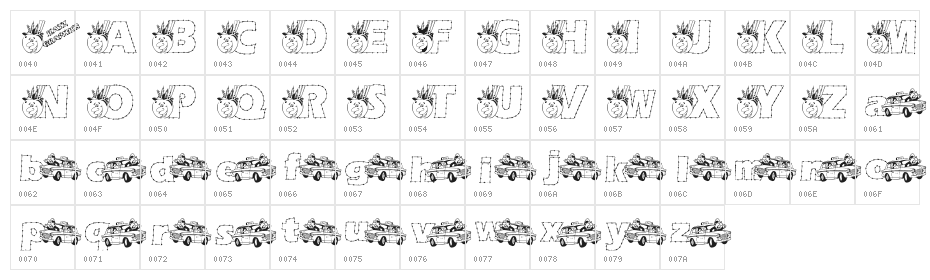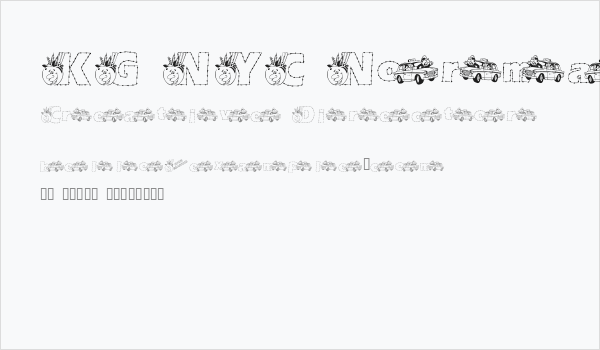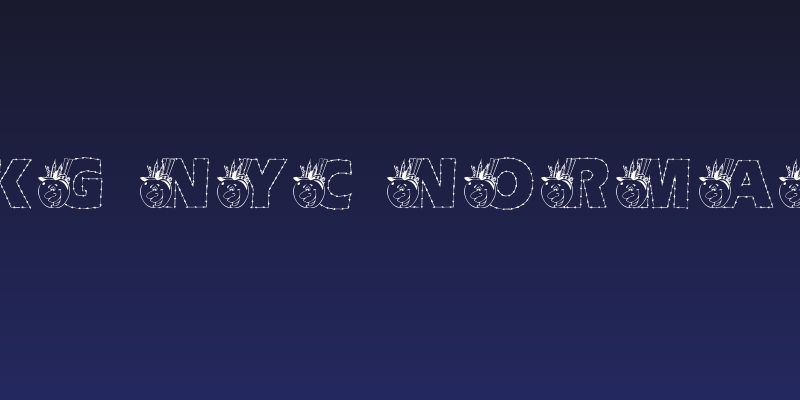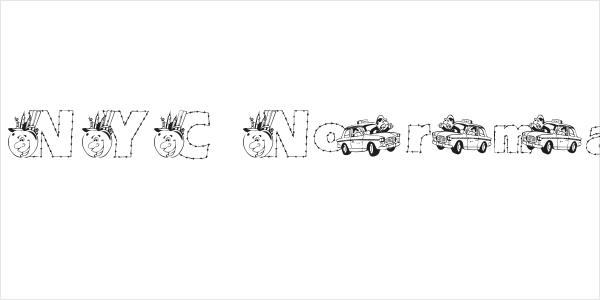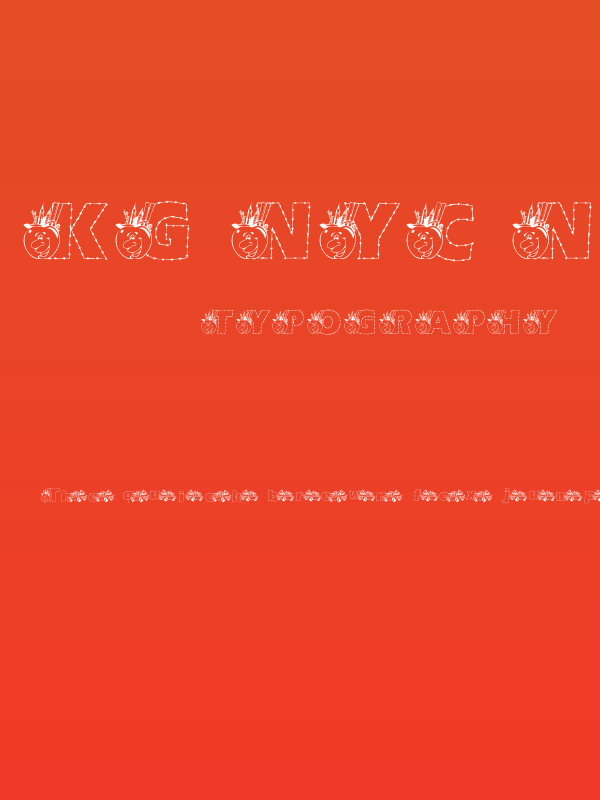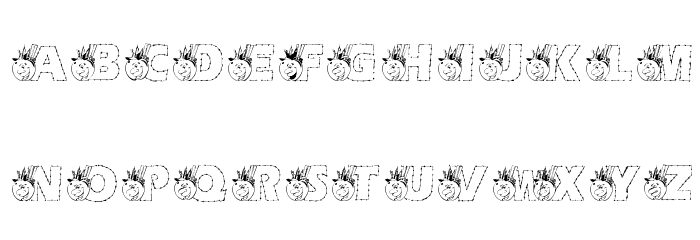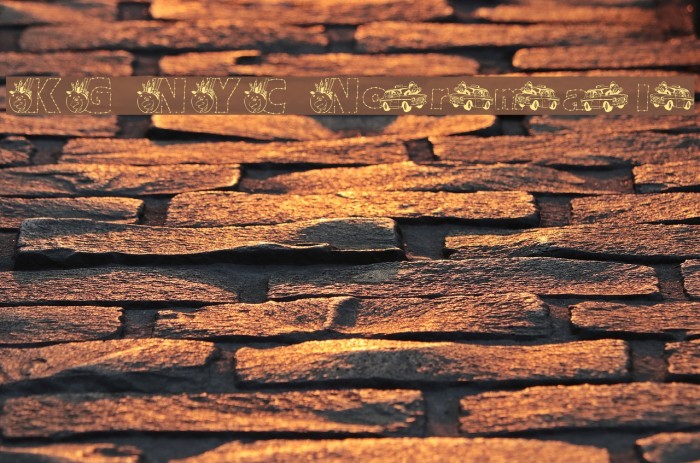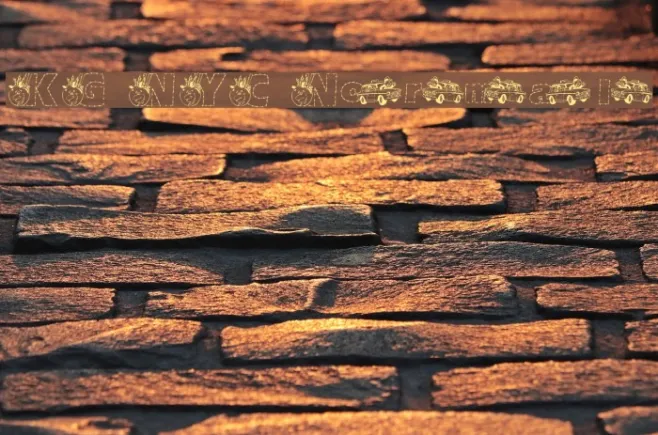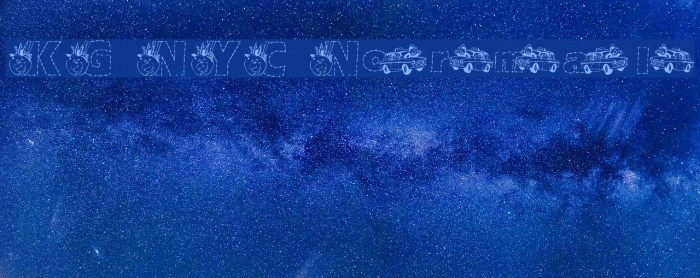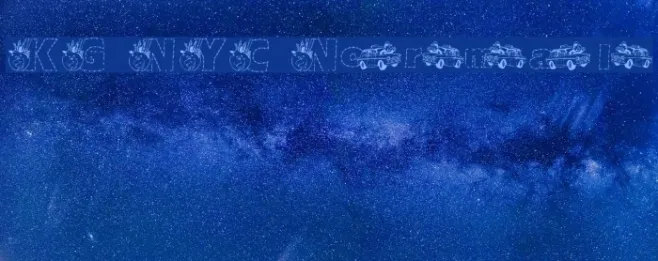
KG NYC Normal Font
KG NYC Normal Description
This playful and decorative font features a unique design where each letter is integrated with a whimsical New York City theme. The uppercase and lowercase letters are adorned with iconic NYC elements, creating a lively and engaging visual experience. The font is highly detailed, with intricate illustrations that capture the essence of the city, making it ideal for projects that require a touch of urban charm and creativity. The characters are well-defined, and the overall style is both fun and artistic, perfect for capturing attention and adding a distinctive flair to any design.
| Use Case | Headlines, Logos, Themed Designs |
| Proposed Projects | Ideal for themed posters, event invitations, children's books, and creative branding projects. |